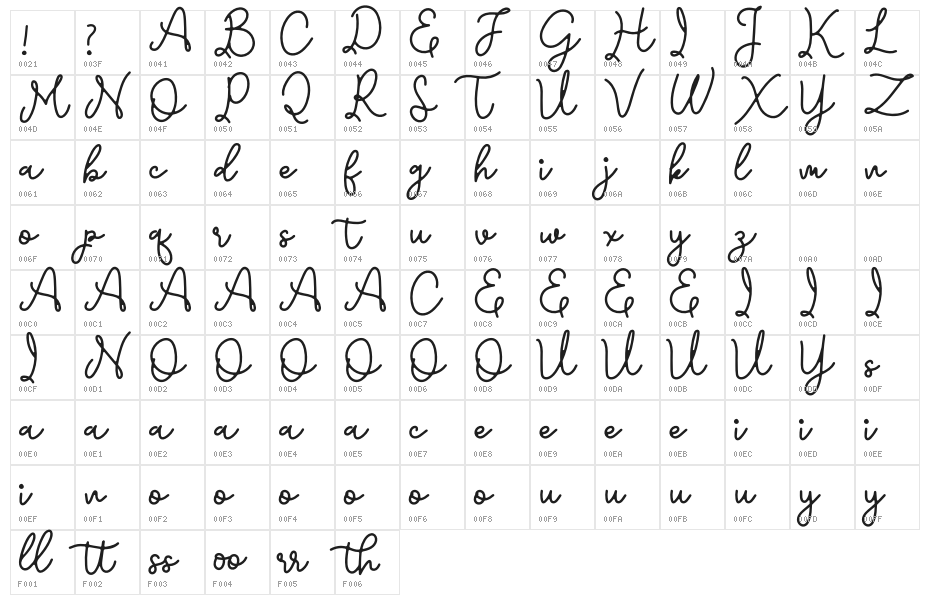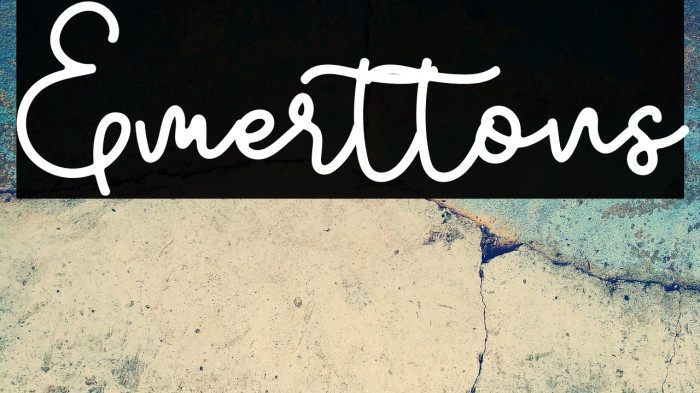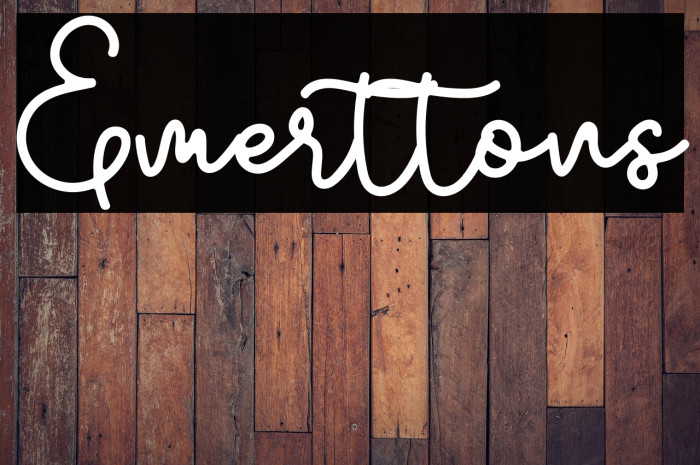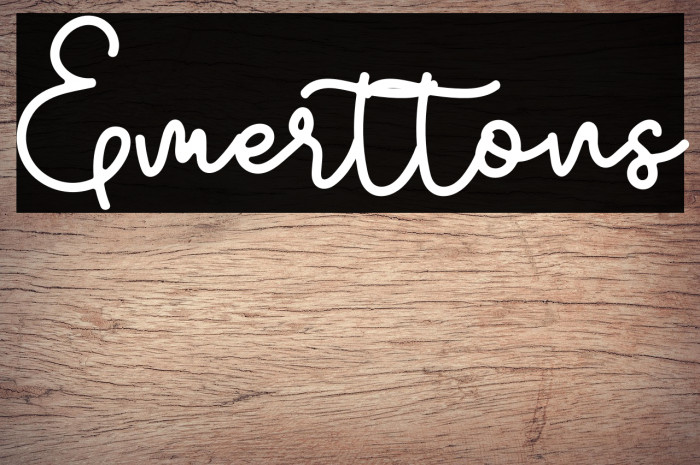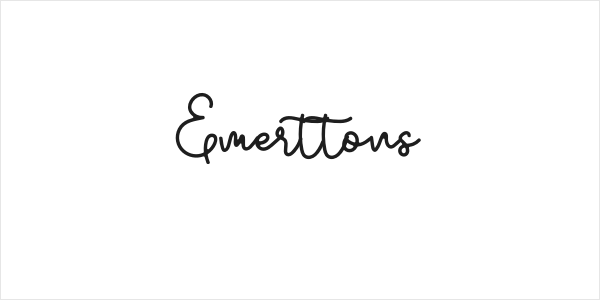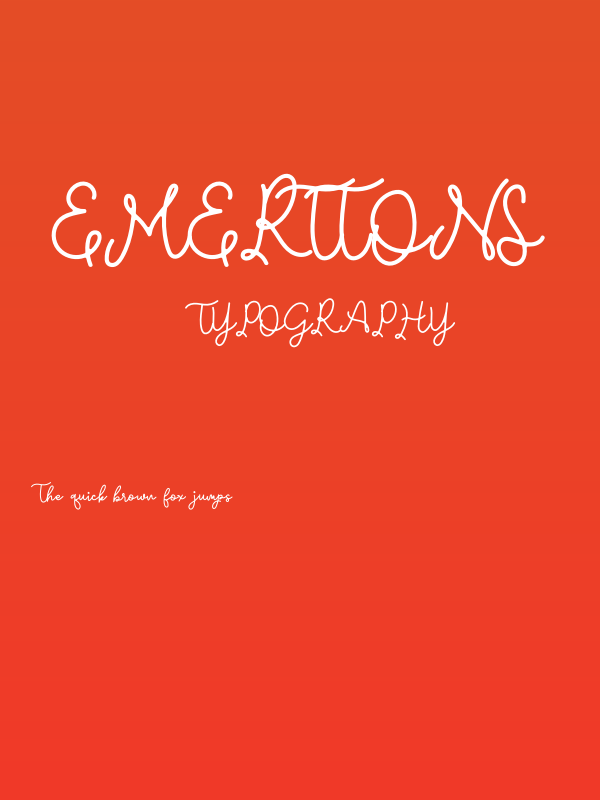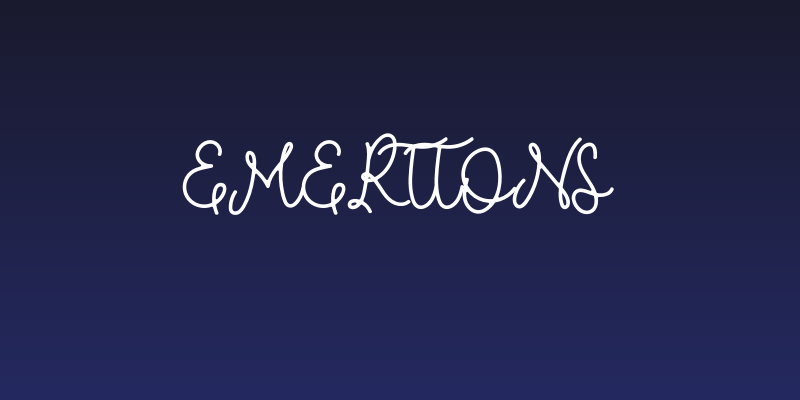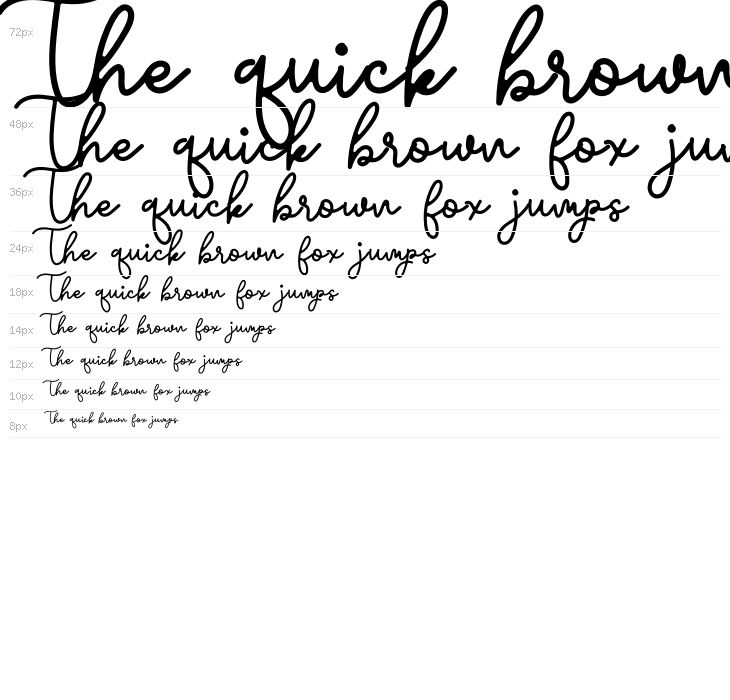
Emerttons Font
Emerttons Description
This font features a charming and fluid script style, characterized by its elegant and flowing letterforms. The uppercase letters exhibit a graceful looped design, while the lowercase letters maintain a consistent and smooth cursive appearance. The font's overall aesthetic is both playful and sophisticated, making it suitable for a variety of creative applications. The absence of special characters and numbers suggests a focus on alphabetic expression, ideal for projects that emphasize text and language. Its unique style is perfect for adding a personal touch to any design.
| Use Case | Logos, Invitations, Personal Branding |
| Proposed Projects | Ideal for wedding invitations, greeting cards, personal branding, and creative projects that require a touch of elegance and personality. |